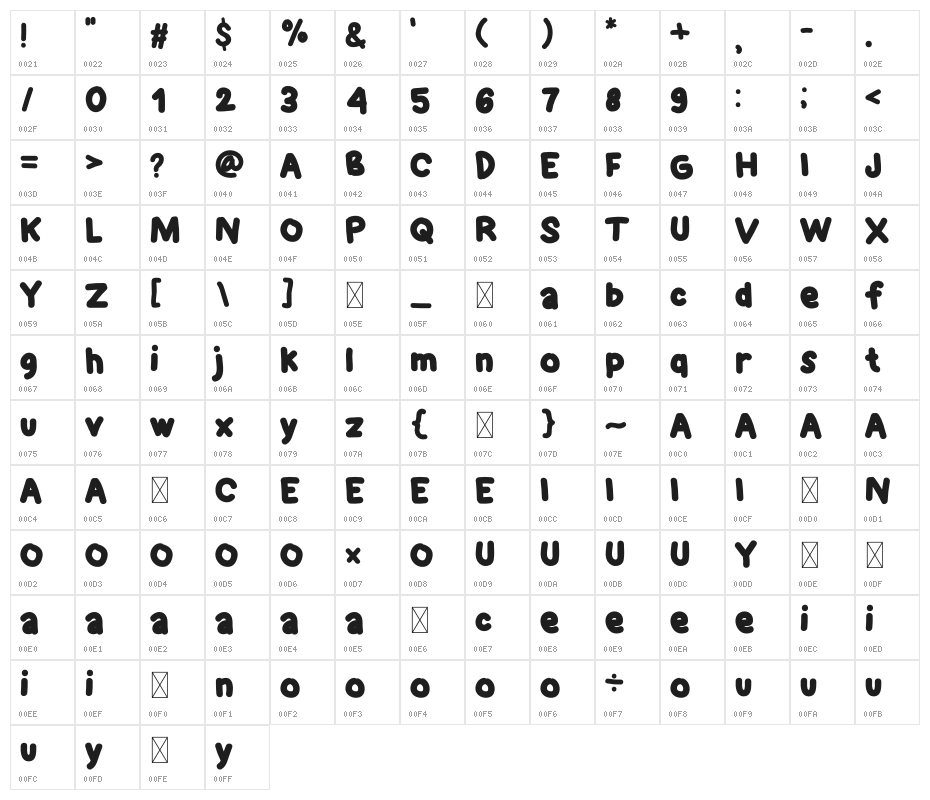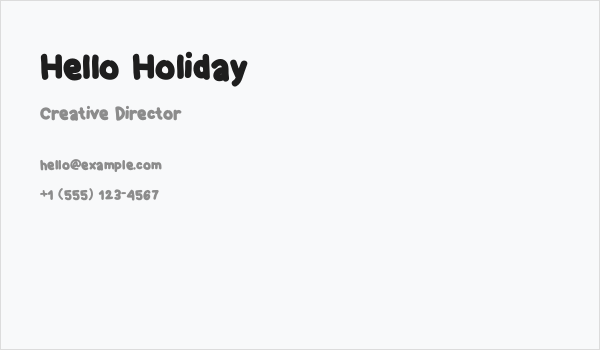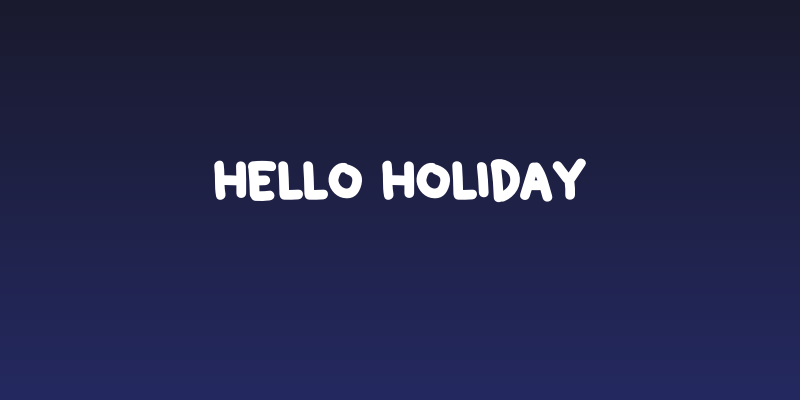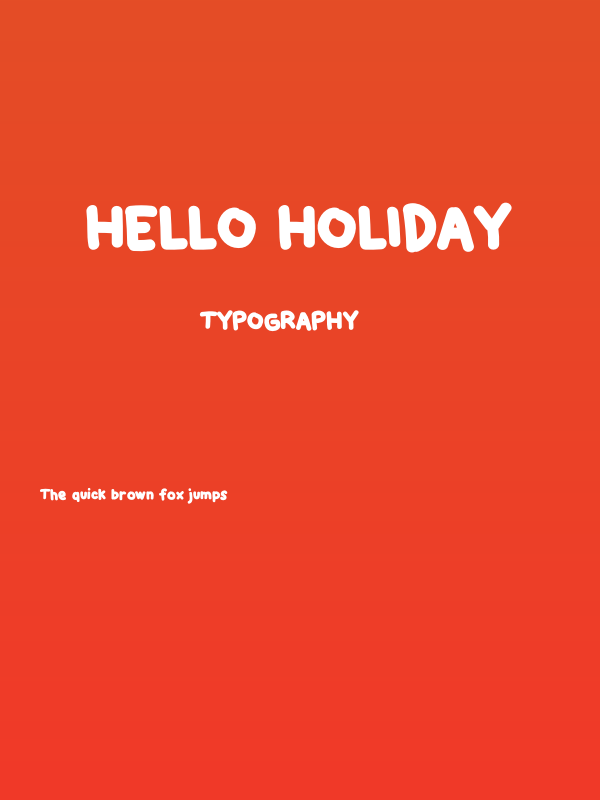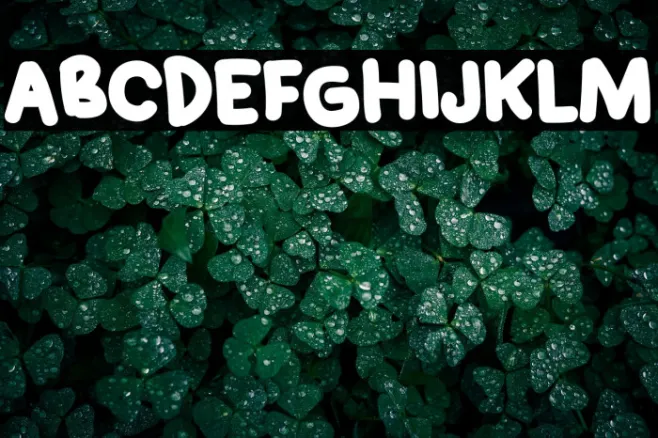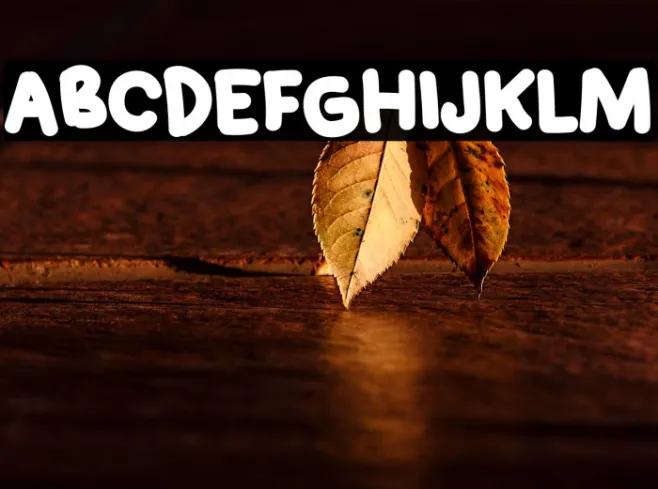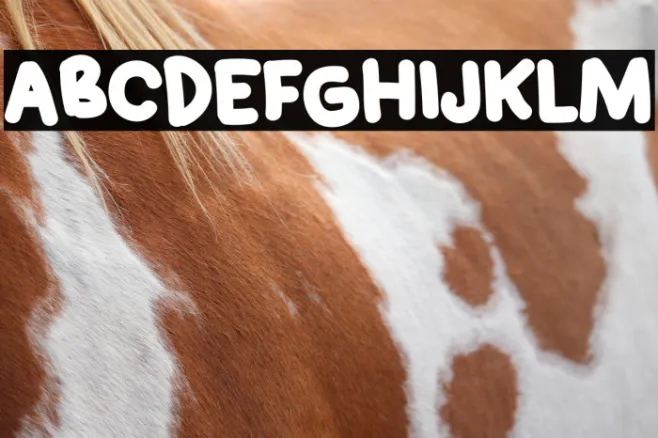
Hello Holiday Font
Hello Holiday Description
This playful and bold font features rounded, thick strokes that give it a friendly and approachable appearance. The characters are uniformly bold, with a consistent weight that makes them stand out prominently. The rounded edges and bubbly form contribute to a whimsical and fun aesthetic, making it ideal for informal and lighthearted designs. The font maintains a consistent height across both uppercase and lowercase letters, ensuring readability and coherence. The numbers and special characters are designed with the same playful style, ensuring a cohesive look across all text elements.
| Proposed Projects | Ideal for children's books, playful branding, party invitations, and casual social media graphics. |